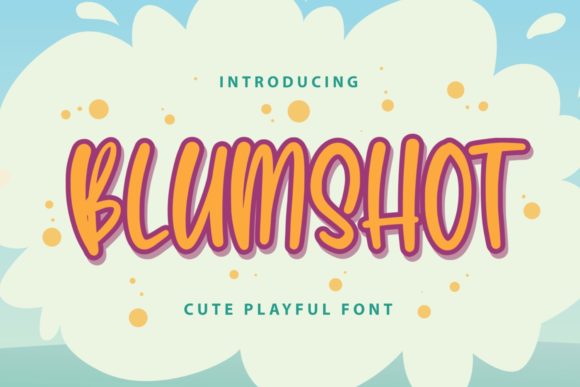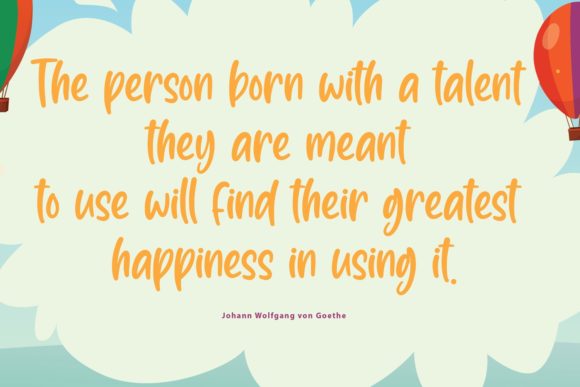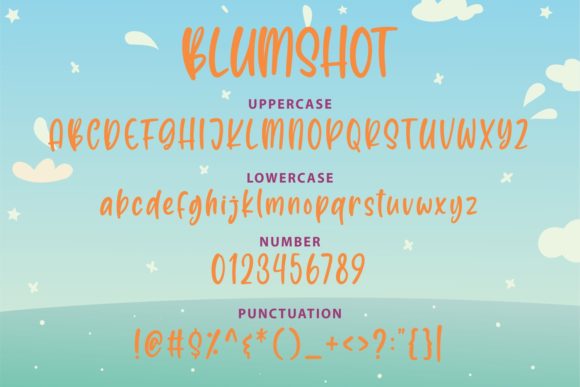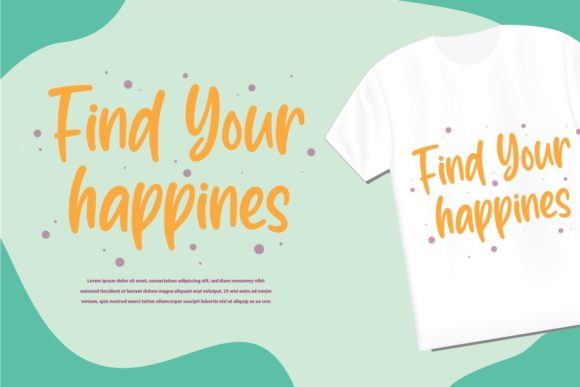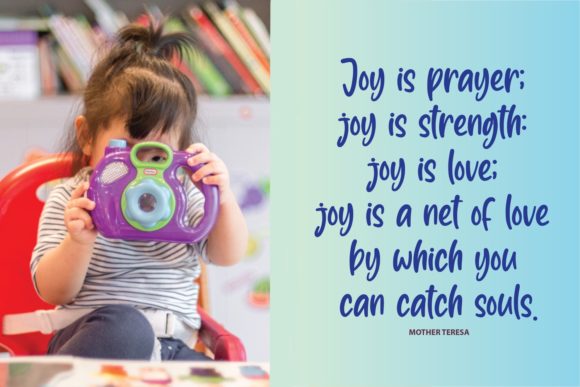
About Blumshot Font
“Blumshot” is a delightful and approachable handwritten font that radiates a warm and friendly vibe. Its charming and casual style makes it a versatile choice for a wide range of design projects. Here are some creative ideas to explore with the lovely “Blumshot” font:
1. Logo Design: Create playful and inviting logos for businesses, especially those in the fields of children’s products, arts and crafts, or creative services.
2. Branding: Use “Blumshot” font as part of a cohesive brand identity, incorporating it into packaging, labels, and marketing materials to establish a friendly and approachable brand image.
3. Social Media Posts: Design eye-catching and engaging social media graphics using “Blumshot” font for captions, quotes, or announcements to capture the attention of your audience.
4. Invitations: Design charming and whimsical invitations for events such as birthday parties, baby showers, or casual gatherings, infusing them with the lighthearted charm of “Blumshot.”
5. Quotes and Typography Art: Create beautiful quote prints or typography art pieces using “Blumshot” font, combining its friendly feel with inspiring or motivational messages.
6. Stationery: Design custom stationery sets, including notepads, greeting cards, and thank-you notes, using “Blumshot” font to add a personal and approachable touch.
7. Crafty DIY Projects: Use “Blumshot” font for DIY craft projects such as handmade cards, scrapbooking, or personalized gifts, adding a touch of sweetness and handmade charm.
8. Children’s Book Illustrations: Pair “Blumshot” font with whimsical illustrations for children’s book covers or chapter titles to create a captivating and friendly design.
9. Blog Headers: Apply “Blumshot” font to blog headers and titles, especially for blogs with a fun and approachable tone, like parenting, lifestyle, or travel blogs.
10. Casual Branding: Use “Blumshot” font for casual and laid-back branding, such as food trucks, cafes, or businesses targeting a young and hip audience.
11. Crafty YouTube Thumbnails: Design engaging YouTube thumbnail graphics with “Blumshot” font for DIY and crafting tutorial videos.
12. Personalized Products: Apply “Blumshot” font to create personalized products like custom mugs, tote bags, or phone cases.
13. Event Signage: Use “Blumshot” font for event signage at fun and informal gatherings, like picnics, outdoor parties, or community events.
14. Handmade Product Labels: Design charming product labels for handmade items, such as candles, soaps, or artisanal food products, with “Blumshot” font to convey a friendly and crafted aesthetic.
15. Web Banners and Ads: Incorporate “Blumshot” font into web banners and ads to add a touch of friendliness and approachability to your online promotions.
With its cheerful and welcoming appeal, the “Blumshot” font brings a sense of playfulness to any design it graces. As you explore its potential, you’ll find that “Blumshot” effortlessly enhances your projects, infusing them with a dose of charm and approachability that captures hearts and attention. Embrace the friendly spirit of “Blumshot” and let it inspire your creative journey!